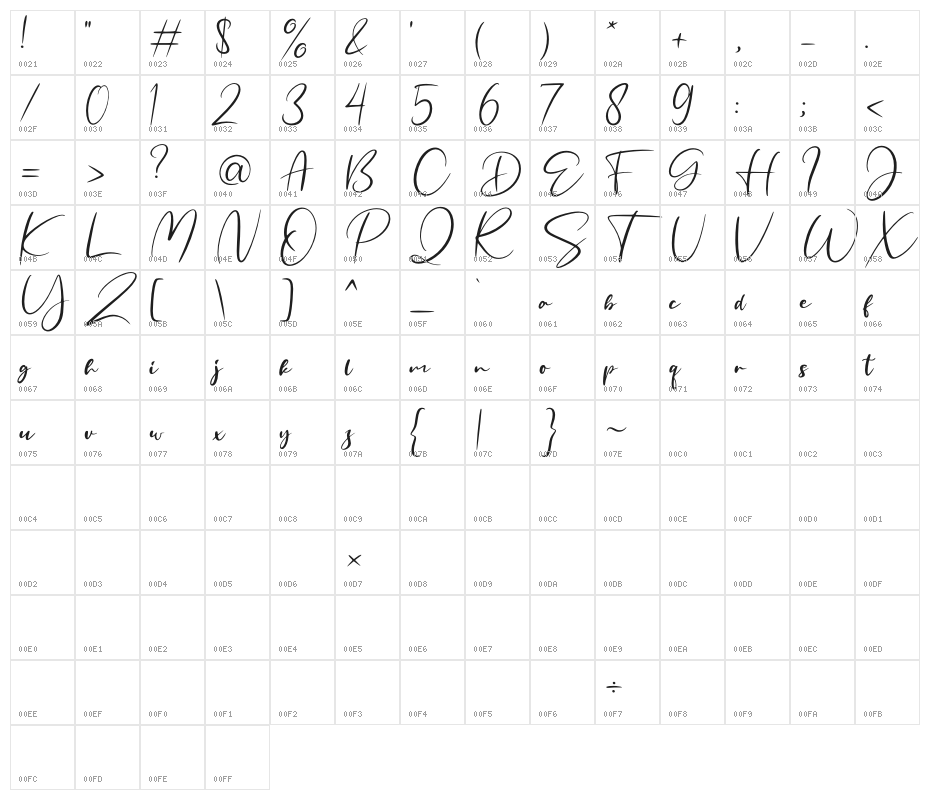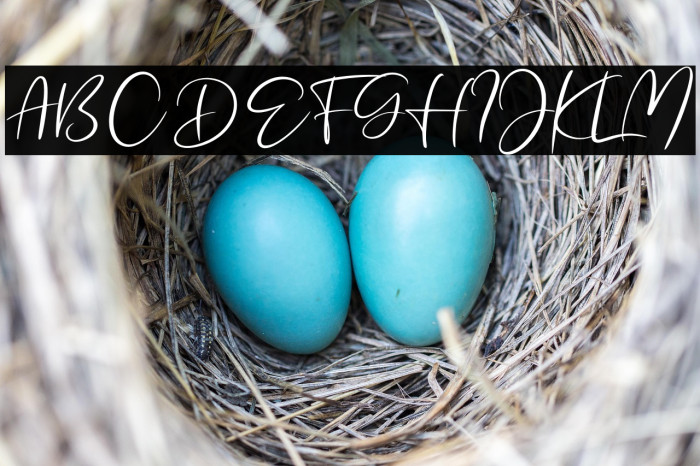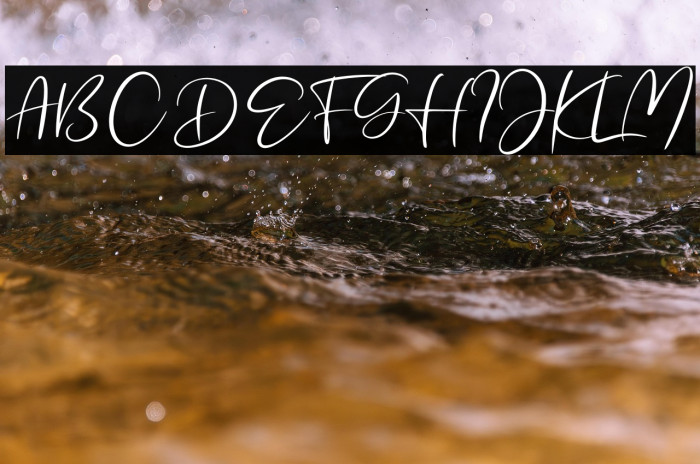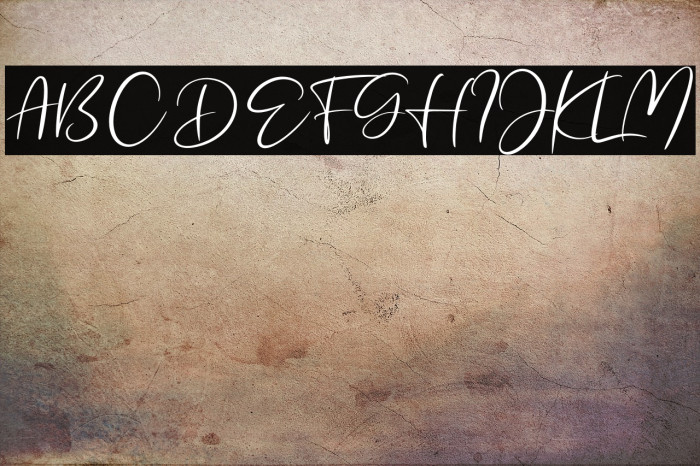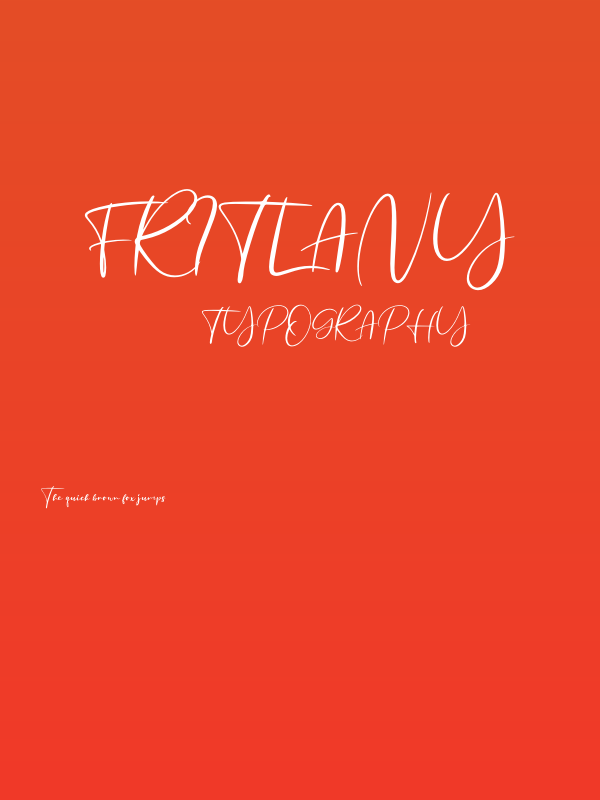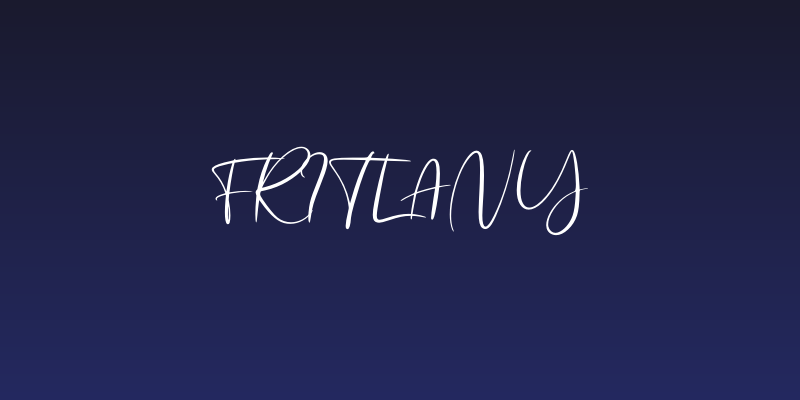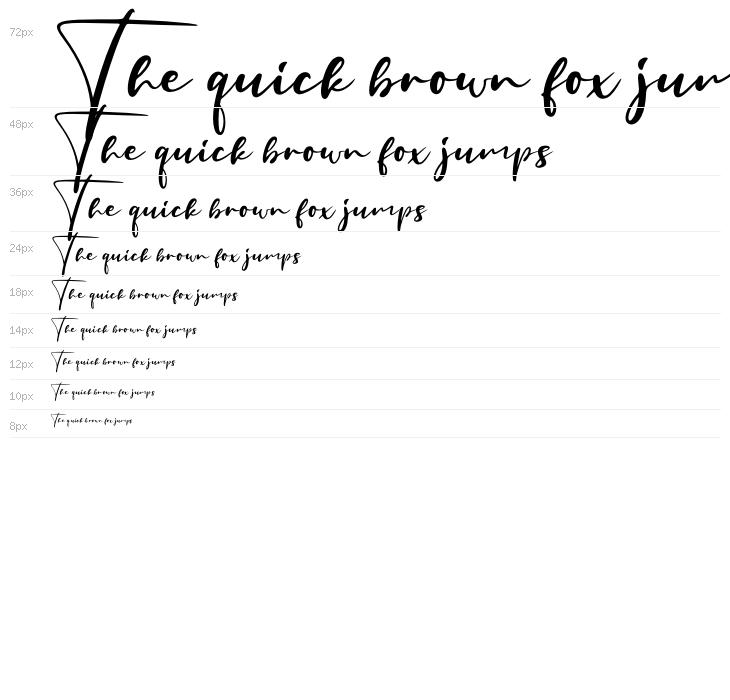
Fritlany Font
Fritlany Description
This font features a lively and expressive script style, characterized by its fluid and dynamic strokes. The uppercase letters exhibit a graceful, flowing form with elegant curves, while the lowercase letters maintain a consistent rhythm and balance. The numerals are designed with a similar flair, offering a cohesive look across all characters. Special characters are crafted with the same attention to detail, ensuring versatility in various design contexts. The font's overall appearance is both modern and artistic, making it suitable for creative and decorative applications.
Use CaseLogos, Headlines, Decorative text
Proposed ProjectsIdeal for wedding invitations, greeting cards, branding, and artistic projects.